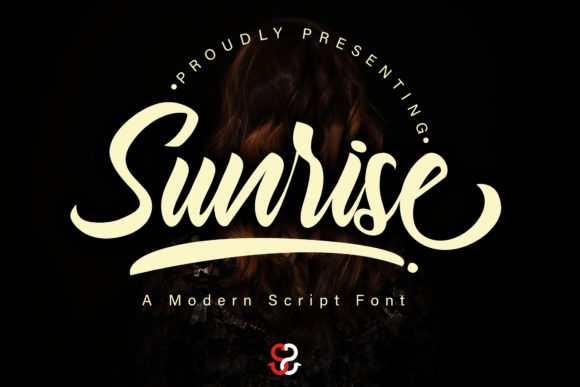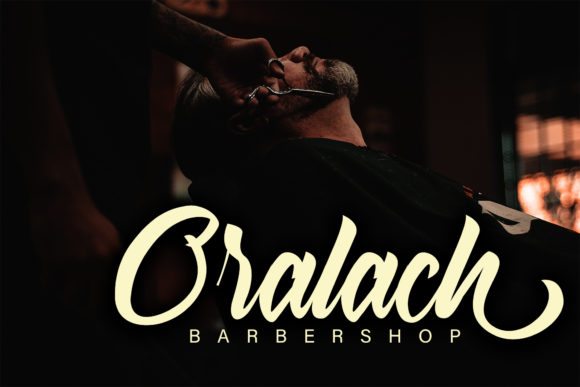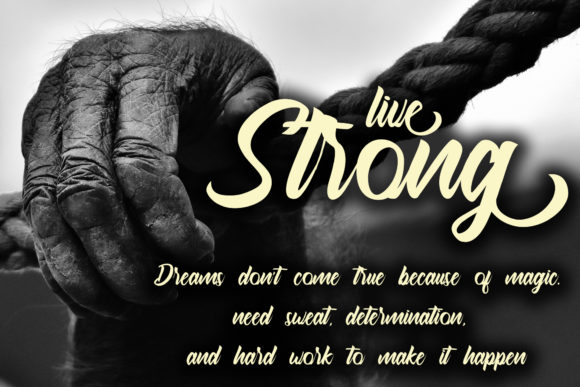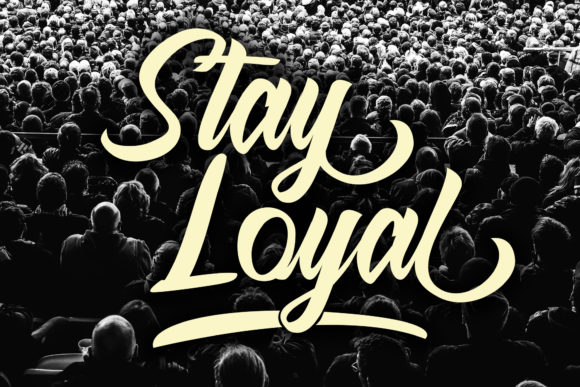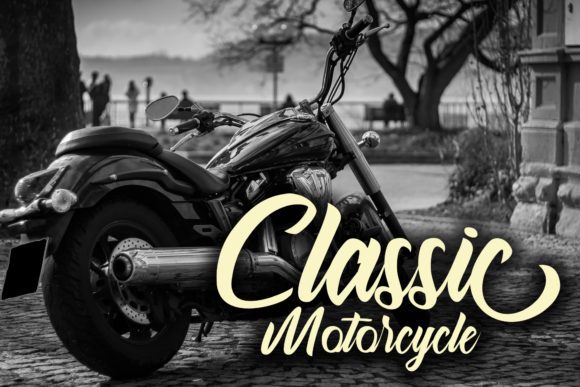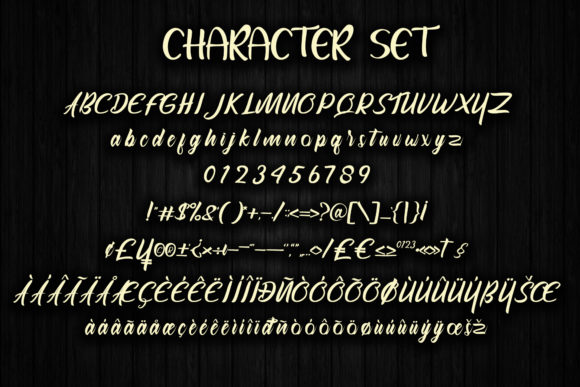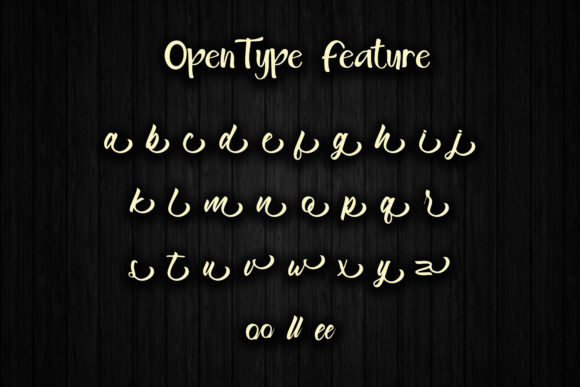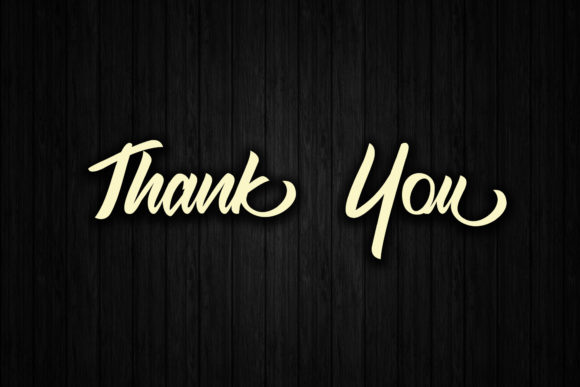
Sunrise Font
About Sunrise Font
Sunrise is a beautiful and elegantly designed script font, suitable for any creative project in need of that personal touch.